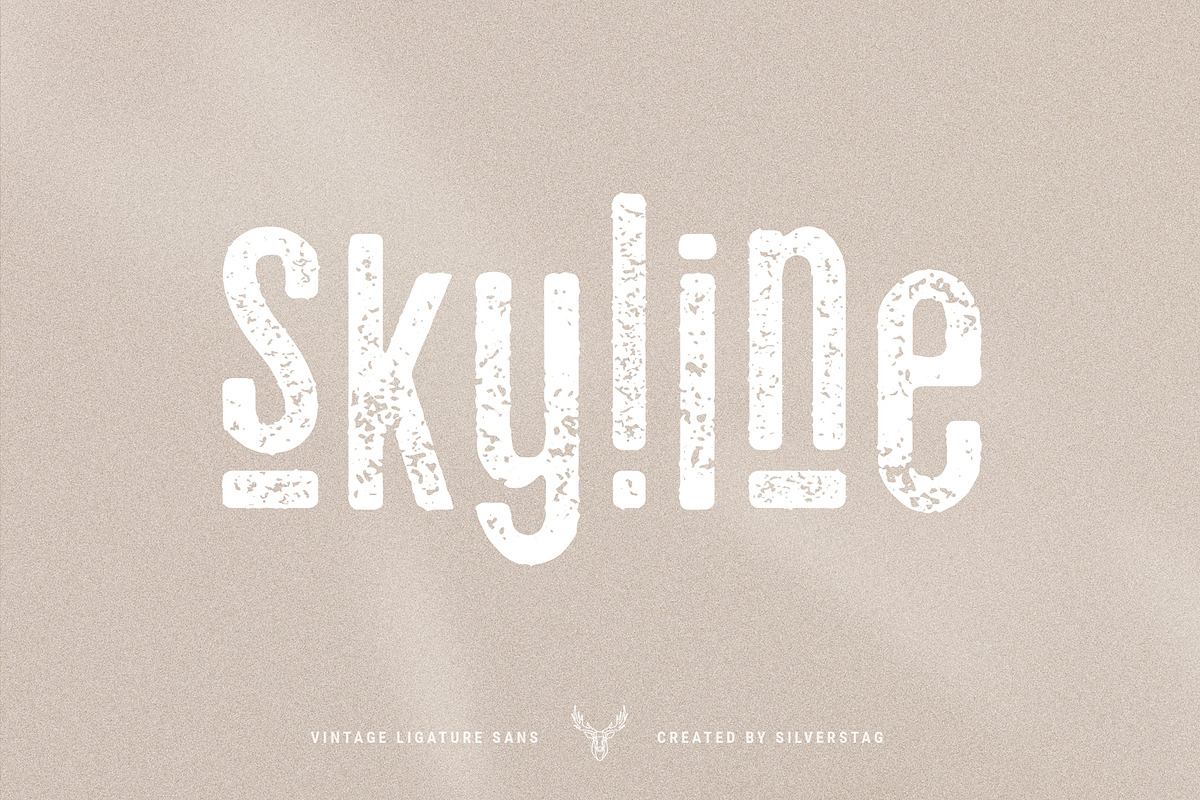
Skyline - Vintage Ligature Sans Font is perfect for retro brand identities, vintage poster design, classic logo creation, urban signage projects, architectural firm branding, city tourism materials, nostalgic advertising campaigns, heritage building signage, metropolitan restaurant menus, vintage travel promotions, classic automotive branding, and timeless editorial designs.
Skyline - Vintage Ligature Sans Font is exciting because it captures the majestic spirit of classic urban architecture and mid-century metropolitan design through its sophisticated ligatures and vintage sans-serif styling that evokes the golden age of city skylines. This remarkable typeface features elegant letter connections and architectural proportions that reflect the grandeur of vintage cityscapes and the timeless appeal of metropolitan sophistication. The font's urban heritage creates instant connections with audiences who appreciate classic city aesthetics and architectural elegance.
Skyline - Vintage Ligature Sans Font includes comprehensive font families: Regular Urban Style, Bold Metropolitan Weight, Light Elegant Touch, Medium Architectural Balance, Italic Dynamic Slant, Condensed City Format, Extended Skyline Width, Ligature Connection Sets, Vintage Textured Effects, and Special Urban Symbols, providing complete solutions for sophisticated vintage and architectural design projects.
This distinguished typography solution transforms modern communications into vintage metropolitan experiences through its authentic architectural aesthetic and carefully crafted ligature system. Skyline - Vintage Ligature Sans Font Free Download enables designers and urban enthusiasts to access premium vintage sans typography that instantly adds architectural sophistication, urban elegance, and metropolitan charm to any creative project. The font's meticulously designed ligatures ensure seamless letter connections while maintaining exceptional readability and vintage character.
Architectural firms, urban developers, and heritage brands trust Skyline - Vintage Ligature Sans Font for its ability to communicate stability, sophistication, and timeless urban values to audiences who appreciate architectural excellence and metropolitan heritage. The typeface's versatile construction performs beautifully across various applications, from intimate architectural drawings to large-scale urban signage systems. Its extensive character support includes multilingual capabilities and architectural design elements that enhance sophisticated urban presentations.
The design inspiration behind Skyline - Vintage Ligature Sans Font draws from classic Art Deco architecture, vintage city signage, and the golden age of metropolitan design that defined urban sophistication in the mid-20th century. This architecture-focused approach creates a font that feels genuinely urban while maintaining contemporary functionality across different architectural contexts and metropolitan brand expressions.
Whether creating architectural firm identities, urban development materials, or vintage city-themed campaigns, this ligature sans font delivers exceptional results that capture the timeless elegance of classic skylines. Download Skyline - Vintage Ligature Sans Font today and discover how premium architectural typography can transform your design projects into sophisticated expressions of urban heritage, metropolitan elegance, and the enduring beauty of classic city architecture.